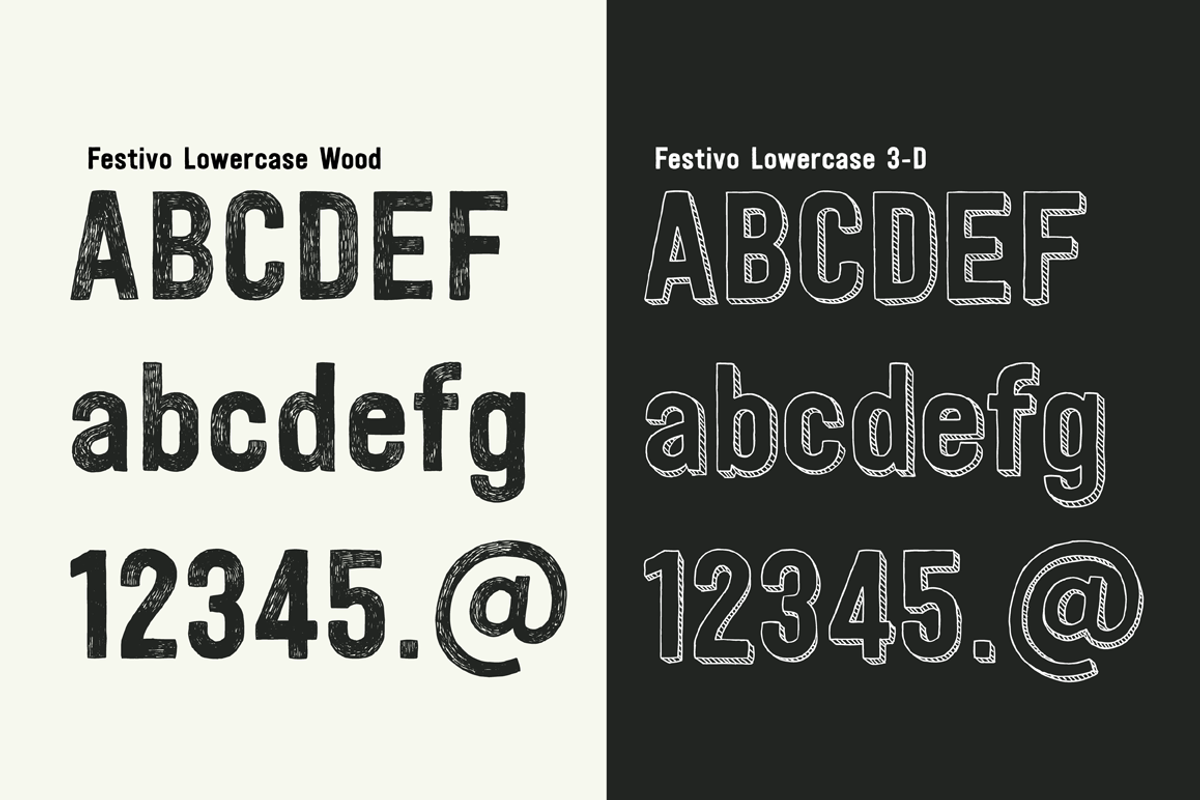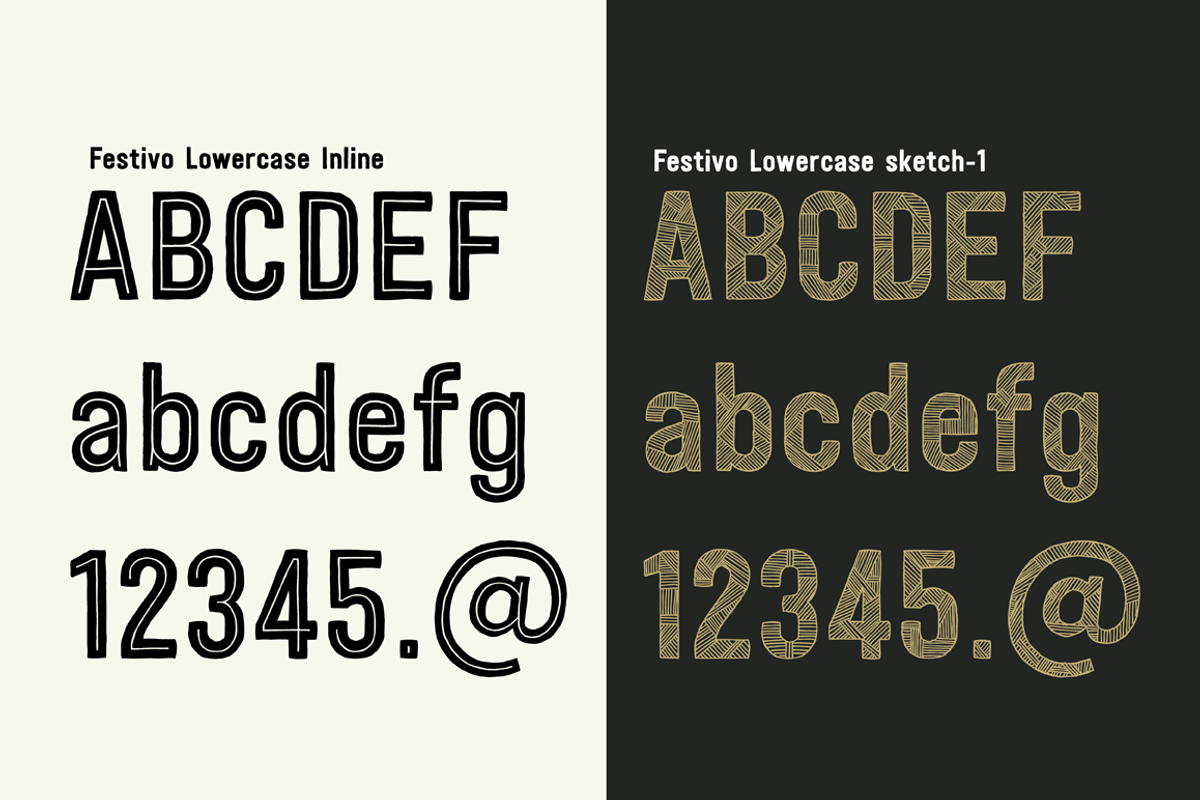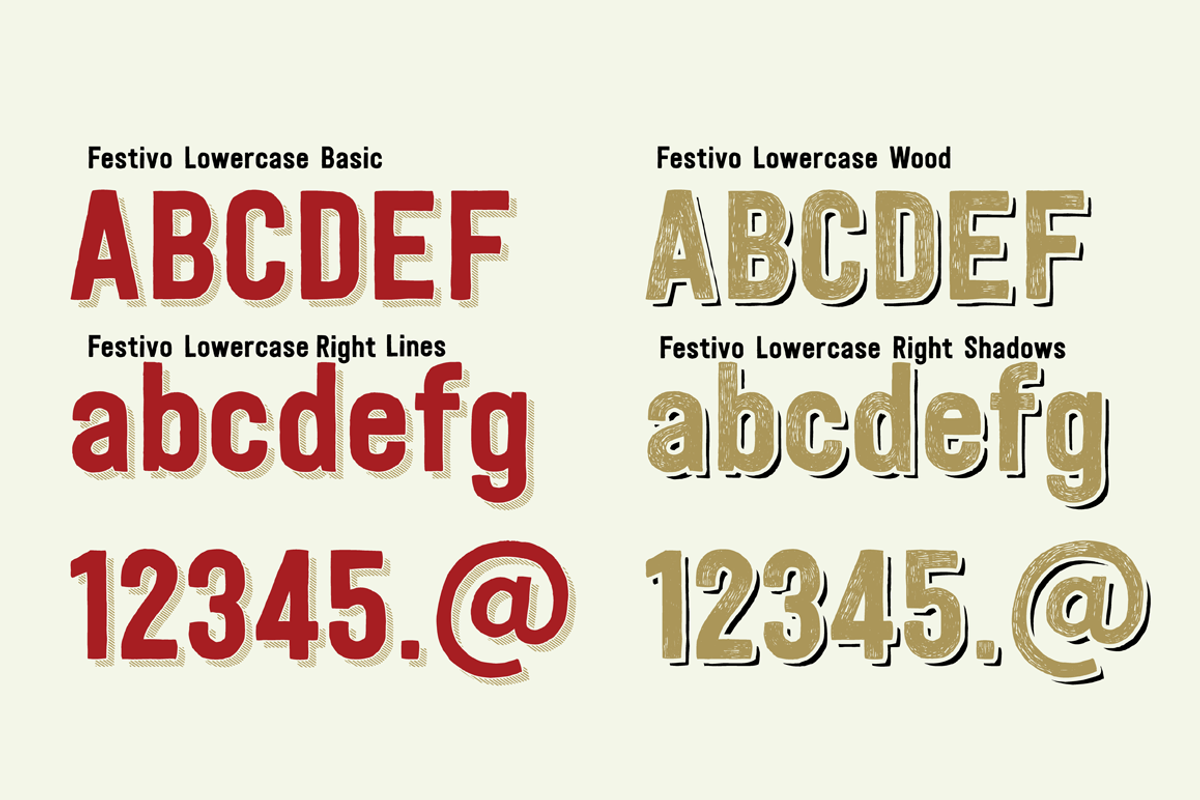
Festivo LC Font Family
Festivo LC Font Family by Ahmet Altun is a font selected for branding, posters, packaging, typography.
- With the lowercases of Festivo Letters Font Family, Festivo LC comes with new sketchs, new shadows and also ornaments.
- Festivo LC Font Family is a handmade layered font which includes several textures and shadows.
- Different font types can be created using various combinations of Festivo LC Fonts and colors.The kernings and the metrics of Festivo LC Fon
Why Festivo LC Font Family is worth a look
Festivo LC Font Family by Ahmet Altun fits naturally into Branding, posters, packaging, typography.